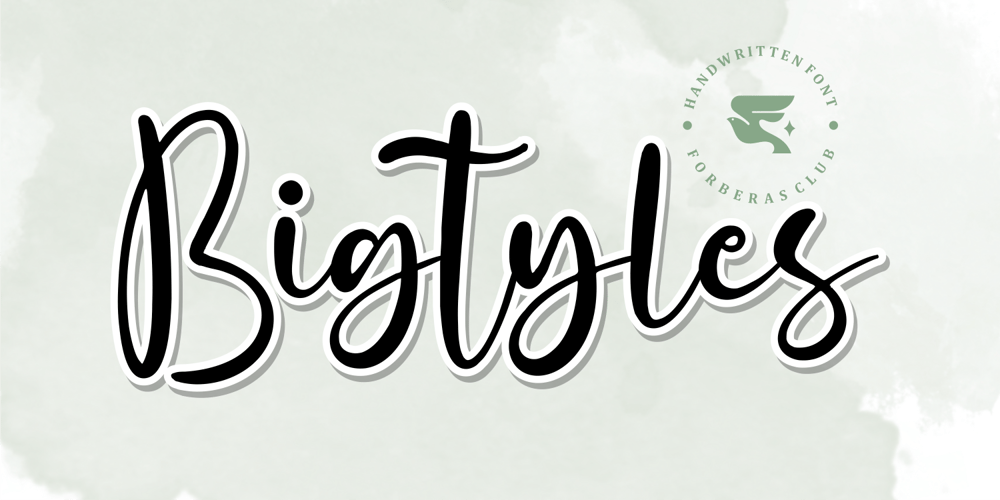
Bigtyles Font Family was designed by ANGGI HERMAWAN and published by Forberas Club. Bigtyles contains 1 styles and family package options. Hi this is Bigstyles our new handwritten font, maybe this playful font theme can suits your upcoming event, party, or your personal project. This font is free for personal use, If you need an extended license or corporate license you can contact me at gasforberas@gmail.com.